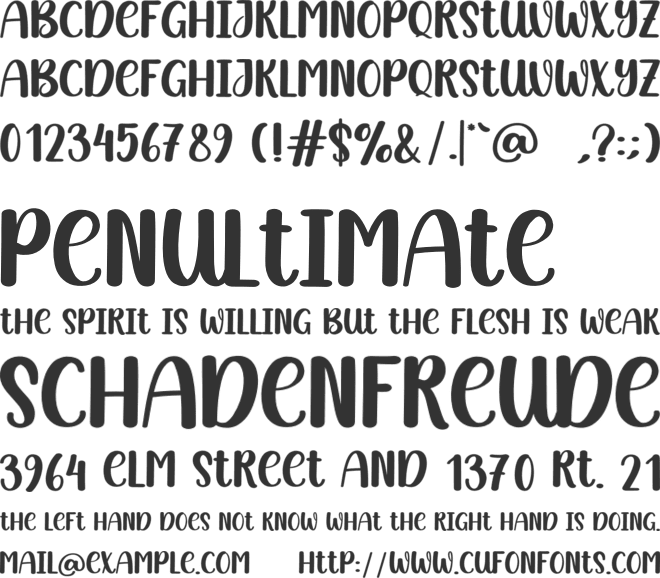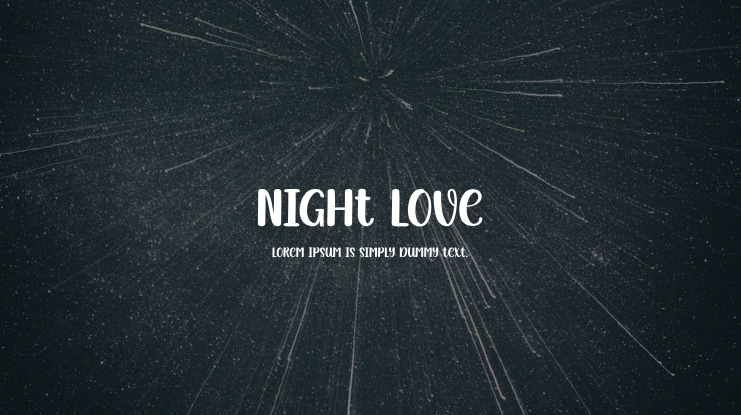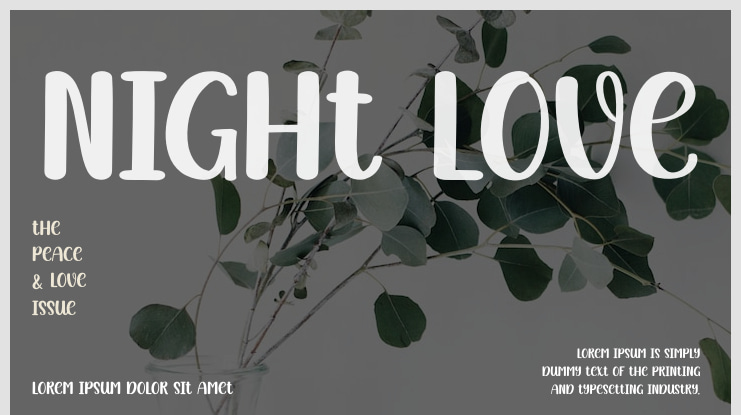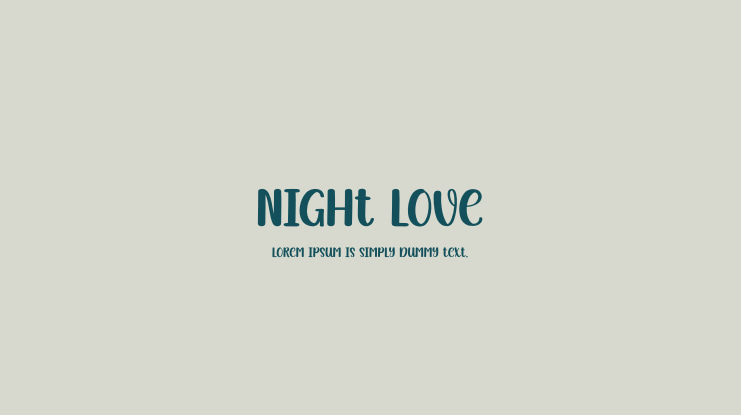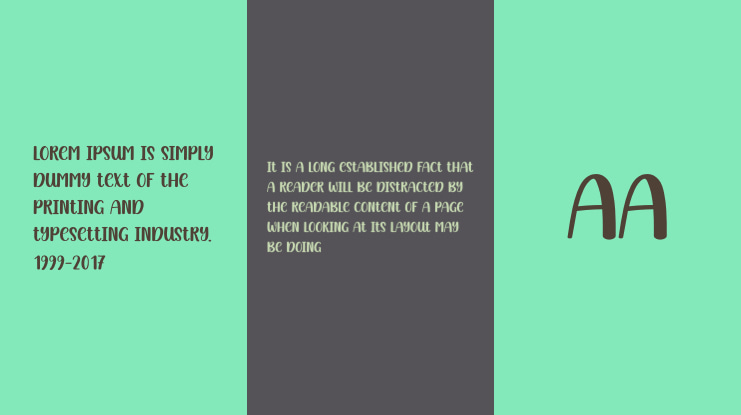
Night Love Font
This charming and approachable handwritten font exudes a warm and inviting feel. With its cute and playful style, it is perfect for creating wedding invitations, cards, or any project that could benefit from a touch of whimsy! For commercial purchases, please visit the website at https://scratchones.com/. If you have any inquiries or require custom font services such as adding glyphs or editing fonts for commercial use, feel free to reach out via email at . Thank you.